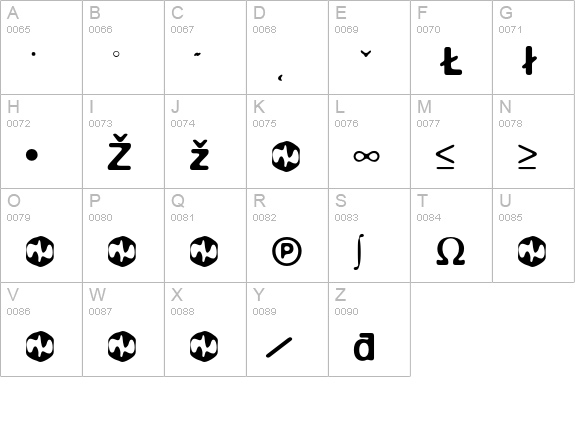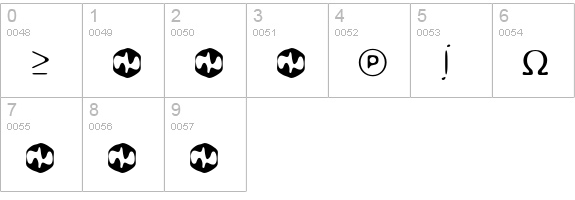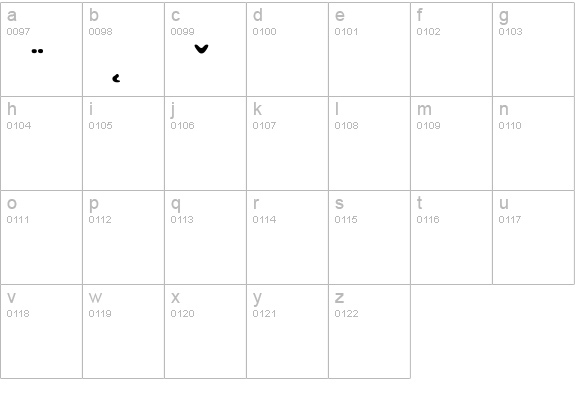
BlurExtra Font Details
BlurExtra font is a stylish and modern typeface that is perfect for adding a touch of creativity to your designs. With its bold and eye-catching appearance, this font is sure to make a statement in any project. Whether you are designing a poster, logo, or website, BlurExtra font will help you stand out from the crowd. The best part about BlurExtra font is that it is completely free to download. You can easily access this font at FontsMarket.com and start using it in your projects right away. Don't miss out on the opportunity to enhance your designs with this unique and versatile font. Download BlurExtra font today and let your creativity shine!